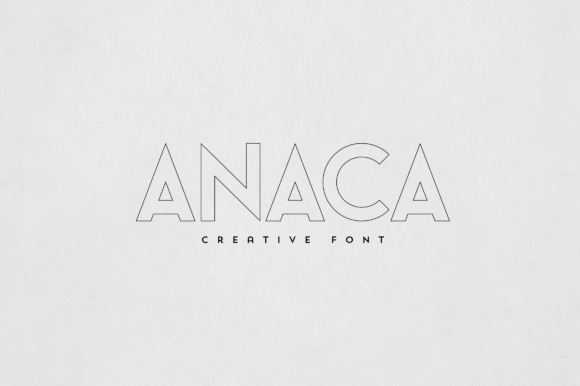
Discover the Magic of Anaca Font
As designers, we’ve all been there – staring at a blank canvas, trying to find the perfect font to bring our creative vision to life. It’s the moment when everything comes together, and our typography truly shines. For me, it’s the thrill of the hunt – scouring through font collections, testing different styles, and searching for that elusive ‘wow’ factor.
Enter Anaca Font, the elegant and versatile display font that’s about to become your new go-to. Perfect for branding projects, home-ware designs, and product packaging, this stunning font will add a touch of sophistication to any design. Whether you’re a seasoned pro or just starting out, Anaca Font is the perfect tool to elevate your typography and make your designs truly unique.
With Anaca Font, you’ll have the power to create stunning logos, captivating headlines, and eye-catching text overlays that will leave a lasting impression. It’s a valuable addition to any designer’s toolkit, and we can’t wait to see what you create with it!
Anaca Font Key Features
- Font Family: Anaca Font is a sans-serif font family.
- Unique Characteristics: Anaca Font features a clean and modern design, making it perfect for use in digital products, such as apps, websites, and video games.
Anaca Font Review
As a designer, I was excited to dive into Anaca Font and see what it has to offer. Here’s my honest review.
- Unique and elegant design – Anaca Font has a distinct, modern feel that makes it perfect for creative projects.
- High-quality typography – The font is crisp and clear, with a wide range of sizes and styles to choose from.
- Perfect for headings and titles – Anaca Font is ideal for grabbing attention and setting the tone for a project.
- Limited language support – Anaca Font may not be suitable for projects that require extensive language support.
- No OpenType features – This may limit the font’s versatility and flexibility in certain design applications.
Anaca Font is a solid choice for designers who need a high-quality, unique font for creative projects. While it may have some limitations, its strengths make it well worth considering. With a little planning and consideration, Anaca Font can be a valuable addition to any designer’s toolkit.
Anaca Font is ideal for:
- Creating modern and sleek designs.
- Designing social media graphics, posters, and flyers.
- Adding a touch of sophistication to presentations and documents. Alternatives to Anaca Font
- Choose the Anaca Font as the primary font for the invitation’s text.
- Pair it with a bold, sans-serif font for headings and titles.
- Use a watercolor or floral pattern as a background to complement the garden theme.
- Use a mix of uppercase and lowercase letters to create visual interest.
- Add hand-drawn illustrations or watercolor elements to enhance the whimsical feel.
- Experiment with different color combinations to find the perfect shade for your garden party.
- Use the Anaca Font for the main title and subtitles, emphasizing the travel destination.
- Pair it with a distressed or vintage-style font for added texture and character.
Exploring Creative Projects with Anaca Font
Create a charming invitation for a garden party using the Anaca Font. This elegant, cursive script font will add a touch of sophistication to your design.
Project 2: Retro-Style Travel Poster
Create a nostalgic travel poster using the Anaca Font. This elegant script font will evoke a sense of adventure and romance.